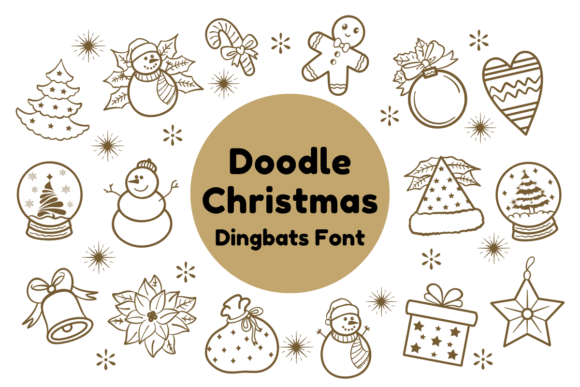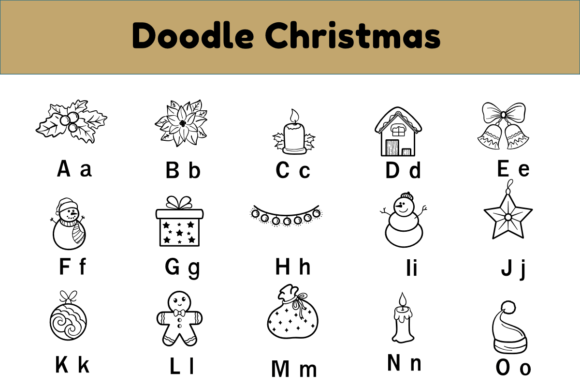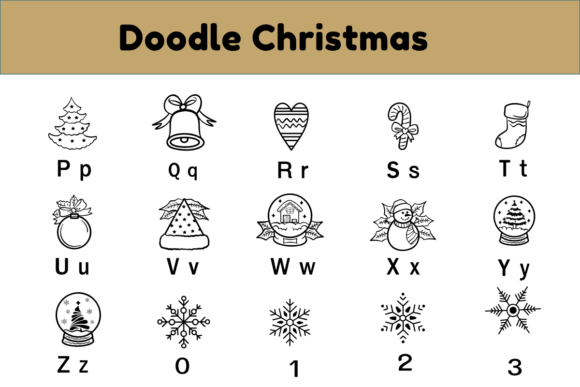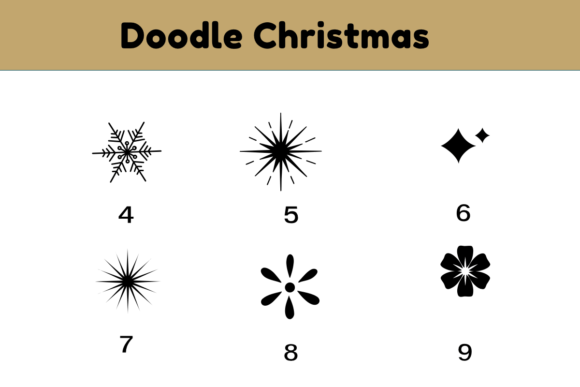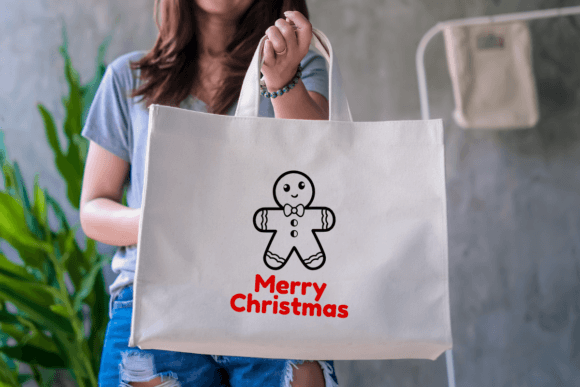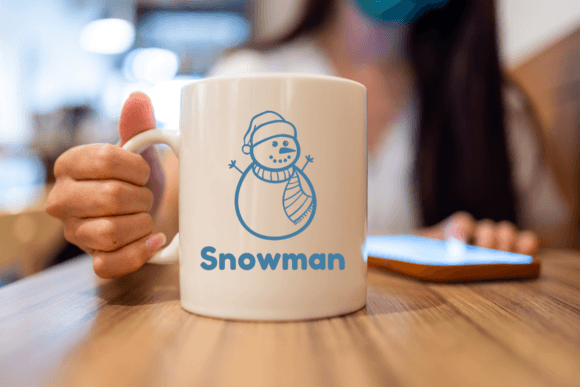
Get into the Holiday Spirit with Doodle Christmas Font
As you sit down to brainstorm ideas for your holiday project, the excitement begins to build. You envision garlands of twinkling lights, snowflakes gently falling, and the warmth of a crackling fire. It’s the perfect time to break out your creative tools and get inspired.
Enter the Doodle Christmas Font, a delightful dingbats font that captures the essence of the holiday season. With its whimsical illustrations and playful characters, this font is the perfect addition to any project. Whether you’re designing wedding invitations, crafting DIY decorations, or creating logos for your business, the Doodle Christmas Font is sure to bring a touch of festive flair to your work.
Doodle Christmas Font Key Features
- Font Family: A festive and playful Christmas-themed font designed to add a touch of holiday cheer to your designs.
- Unique Characteristics: Features a whimsical, hand-drawn design with intricate details and ornaments, perfect for adding a personal touch to your holiday designs.
- Characters and Glyphs: Includes a comprehensive set of characters, including uppercase and lowercase letters, numbers, punctuation marks, and special characters, as well as festive holiday symbols and ornaments.
Doodle Christmas Font Review
I’ve had the chance to work with “Doodle Christmas Font” and here’s my honest review:
This font is perfect for adding a playful touch to your holiday designs. The doodle-style illustrations of snowflakes, trees, and other Christmas elements are delightful and add a lot of character to your work.
- Great for creating a whimsical and festive atmosphere
- Perfect for children’s books, greeting cards, and other holiday-themed projects
- Easy to read and understand, even at smaller font sizes
While “Doodle Christmas Font” is a great choice for holiday designs, there are a few limitations to consider:
- May not be suitable for more formal or professional projects
- Lack of versatility – it’s primarily designed for Christmas-themed projects
- Some characters may be difficult to customize or modify
Overall, “Doodle Christmas Font” is a great choice for anyone looking to add a playful touch to their holiday designs. While it may not be suitable for all projects, it’s a great option for those looking to create a fun and festive atmosphere.
The Doodle Christmas Font is perfect for:
- Creating festive holiday cards and invitations.
- Designing holiday-themed social media graphics and ads.
- Adding a touch of whimsy to holiday-themed marketing materials.
To get the most out of the Doodle Christmas Font, try:
- Combining it with other festive fonts and graphics.
- Using it to create a cohesive holiday brand identity.
- Experimenting with different colors and layouts to create a unique look.